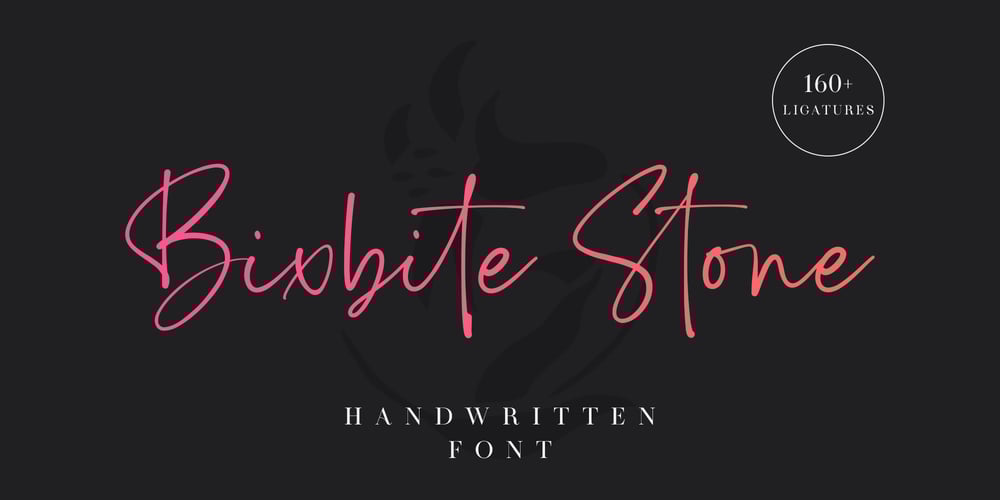
Bixbite Stone Font Family was designed by Dwi Ahidian and published by Lemonthe. Bixbite Stone contains 1 styles and family package options. Bixbite Stone is a elegant and flowing handwritten font. 160+ ligatures are included in this font. It is the best choice for creating eye catching logos, branding, wedding design, product packaging and quotes. Every letter has a unique and beautiful touch, which will make your design come alive!